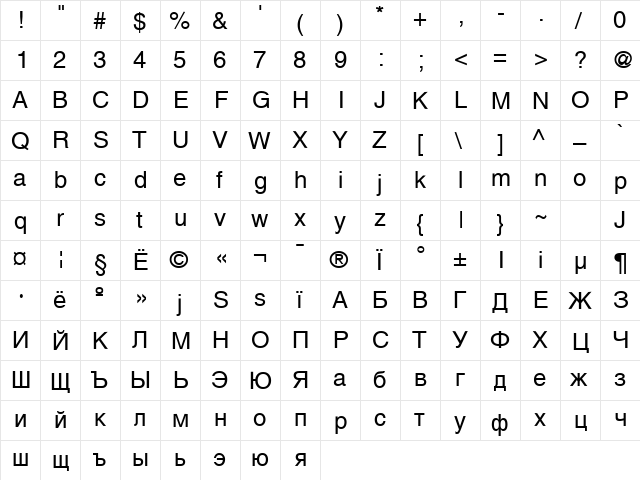
A1010Helvetika TYGRA Normal
Design Context for A1010Helvetika TYGRA Typeface
A1010Helvetika TYGRA takes a measured approach to typography — its balanced proportions and neutral character make it a reliable workhorse for both digital and print work.